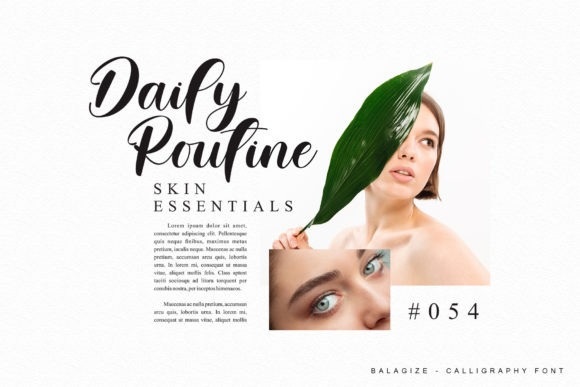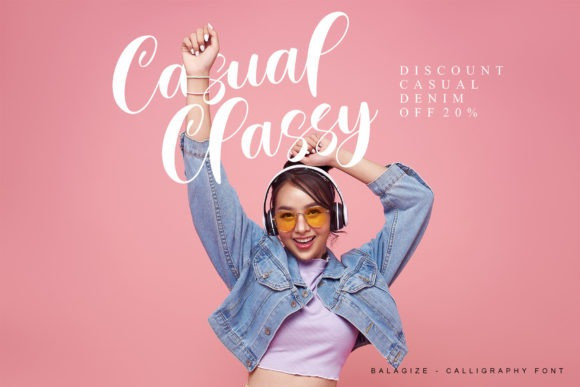
Balagize Font
Balagize Script Font is a dazzling script font. This font is neatly crafted and highly detailed. Balagize is PUA encoded which means you can access all of the amazing glyphs and ligatures with ease!